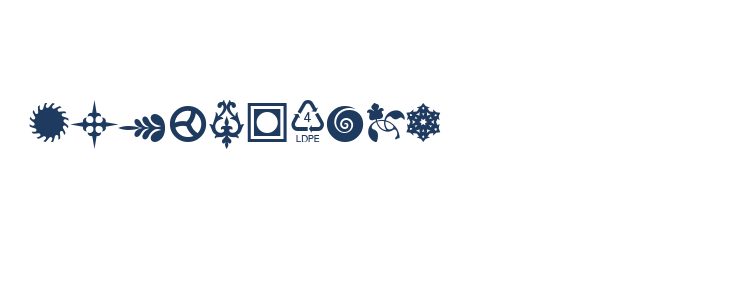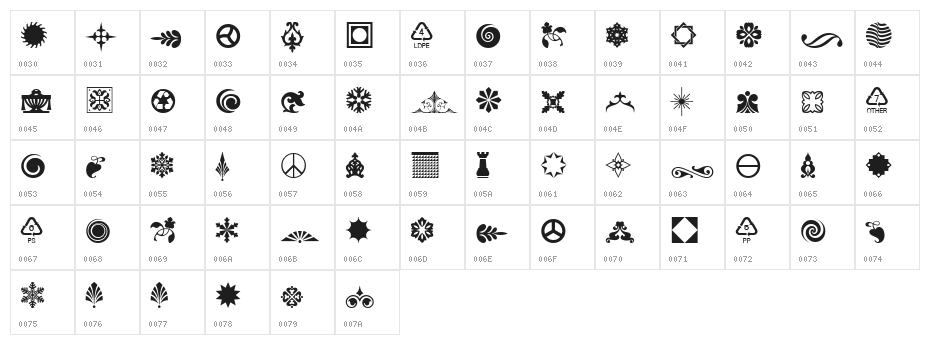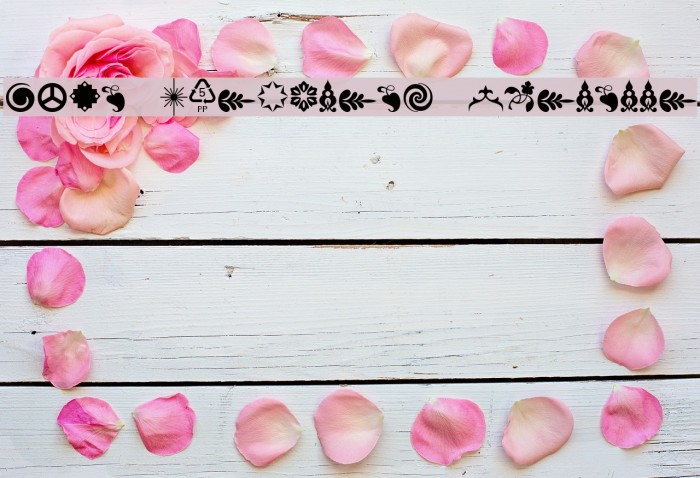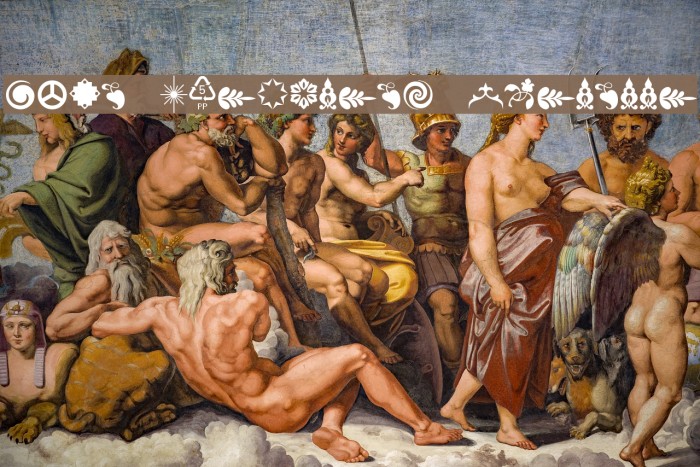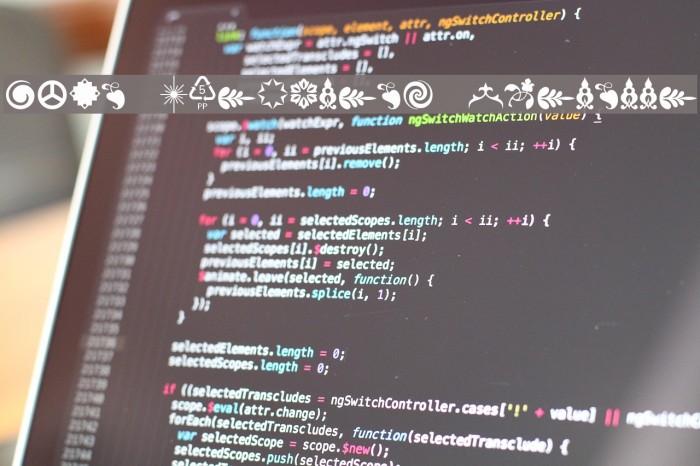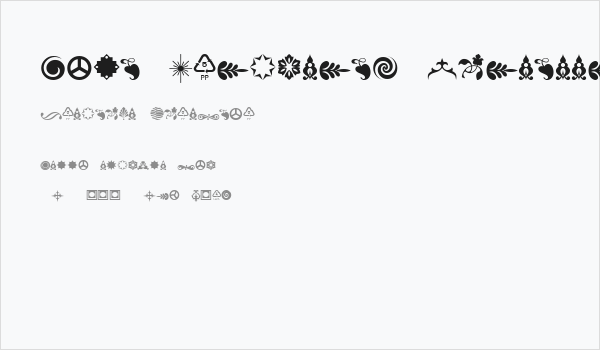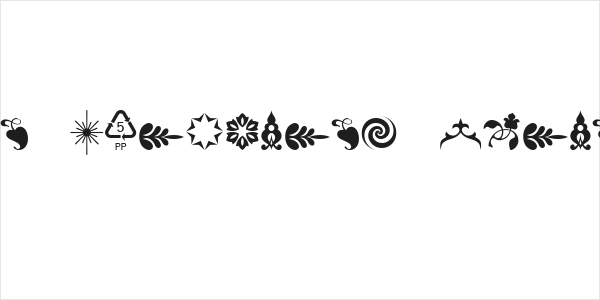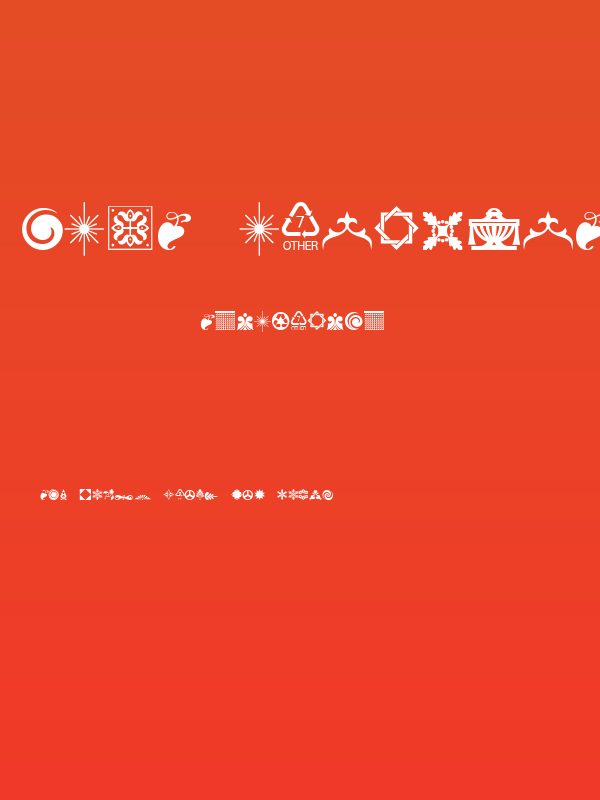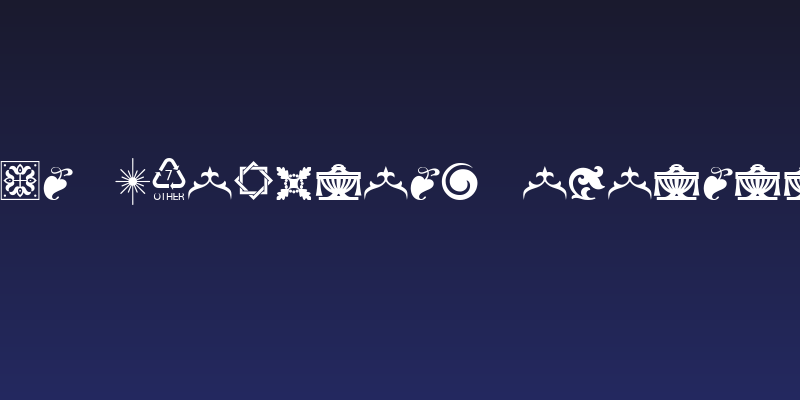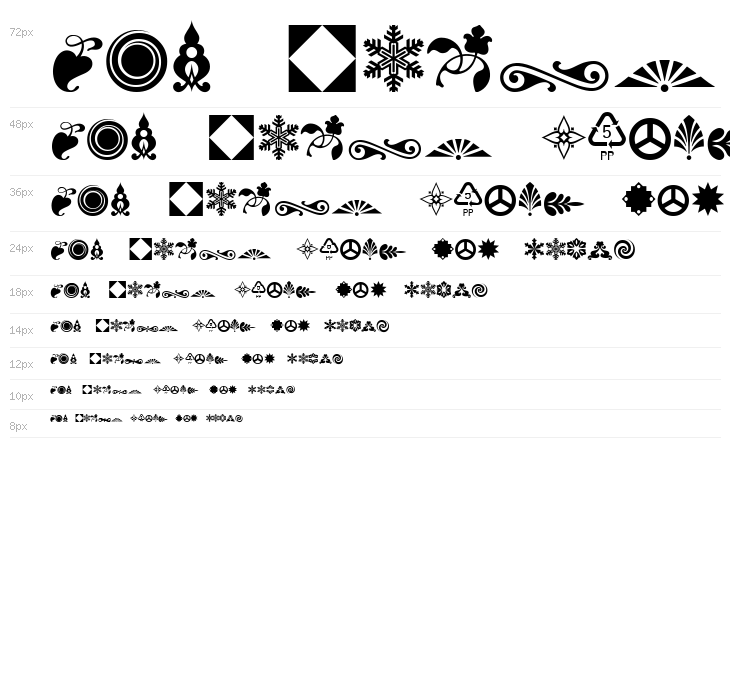
Soft Ornaments Nineteen Font
Soft Ornaments Nineteen Description
A decorative dingbat font featuring a variety of ornamental symbols, including floral motifs, geometric shapes, swirls, snowflakes, peace signs, recycling symbols, and other intricate embellishments. The glyphs are bold, highly stylized, and primarily black-filled, offering a diverse range of visual accents for creative projects.
Overall StyleDecorative, Ornamental, Playful
Use CaseBorders, embellishments, icons, creative dividers, visual accents
Proposed ProjectsInvitations, certificates, scrapbooking, decorative borders, digital art, branding accents, packaging, and creative layouts.